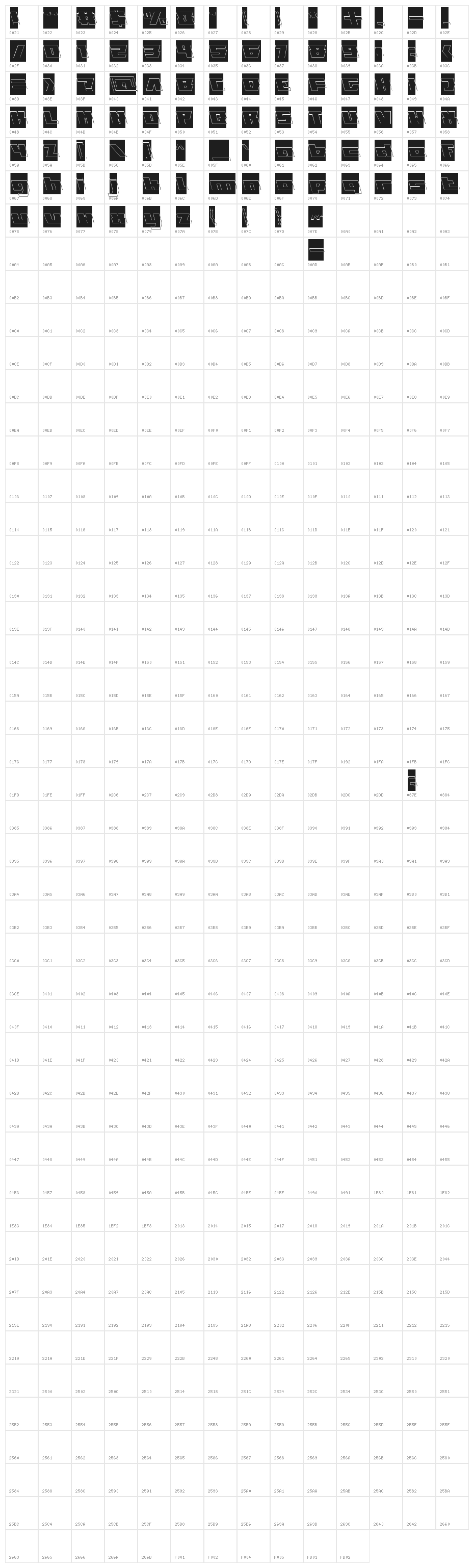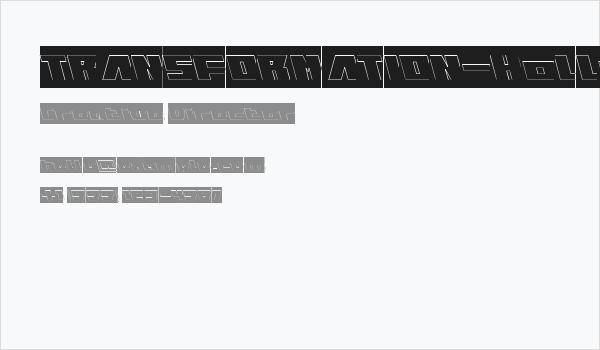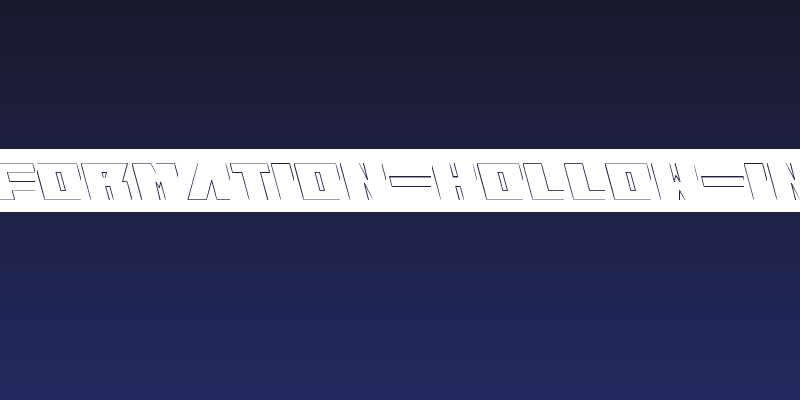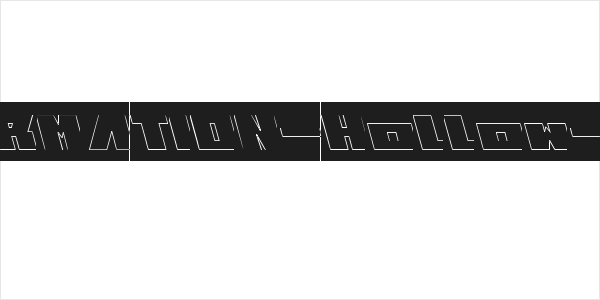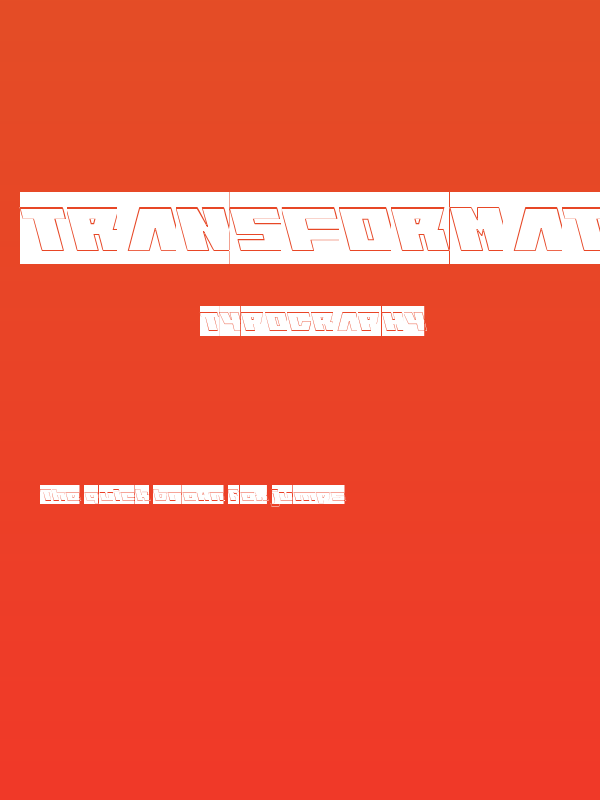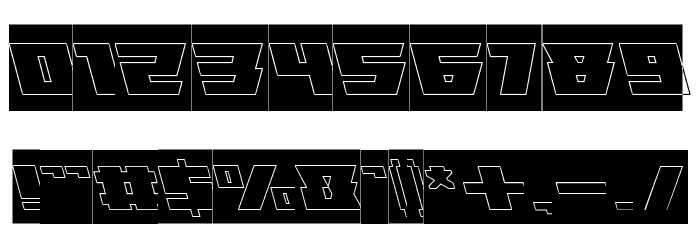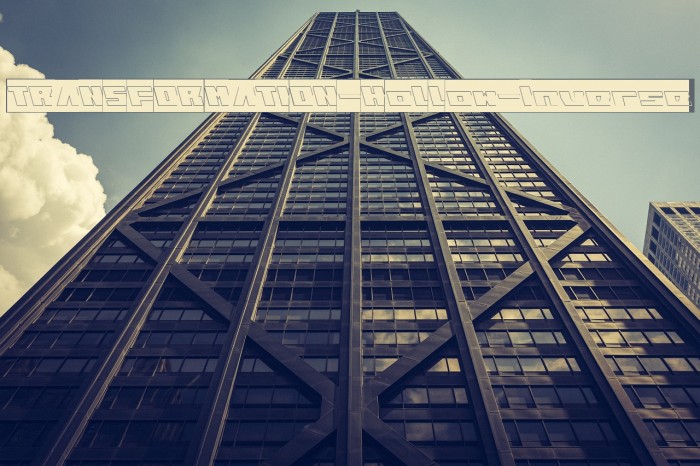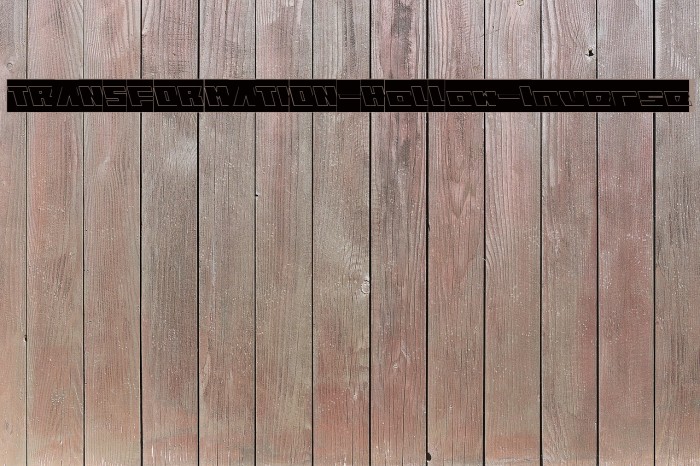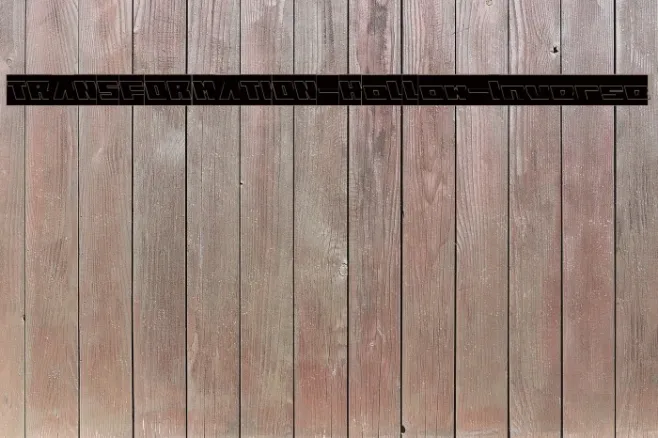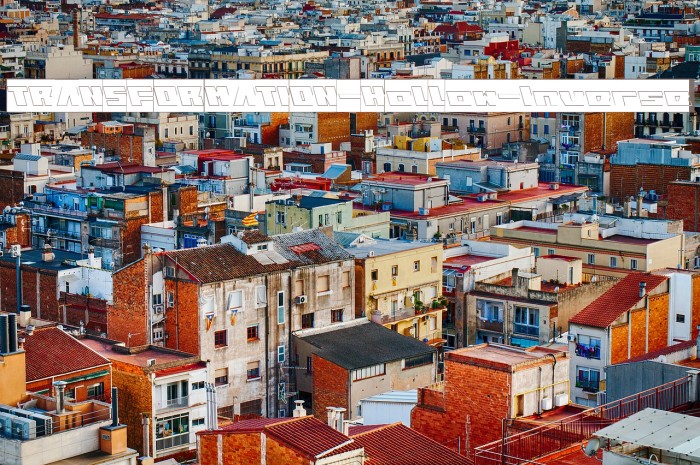
TRANSFORMATION-Hollow-Inverse Font
TRANSFORMATION-Hollow-Inverse Description
This font features a bold, hollow design with an inverse style that creates a striking visual impact. The characters are outlined with a thick border, giving them a three-dimensional appearance. The uppercase and lowercase letters maintain a consistent geometric structure, while the numbers and special characters follow the same design principles. The font's unique style is both modern and futuristic, making it suitable for creative and eye-catching designs. Its boldness and distinctiveness make it ideal for projects that require a strong visual presence.
| Overall Style | Modern, Futuristic |
| Proposed Projects | Ideal for posters, logos, video game graphics, and futuristic-themed designs. |